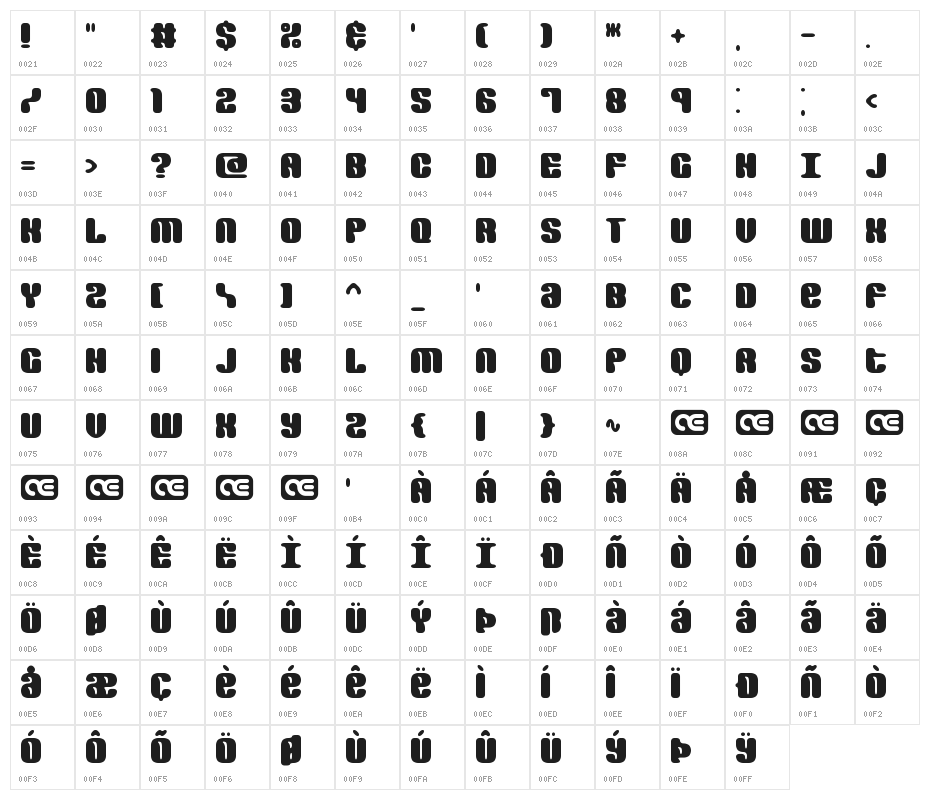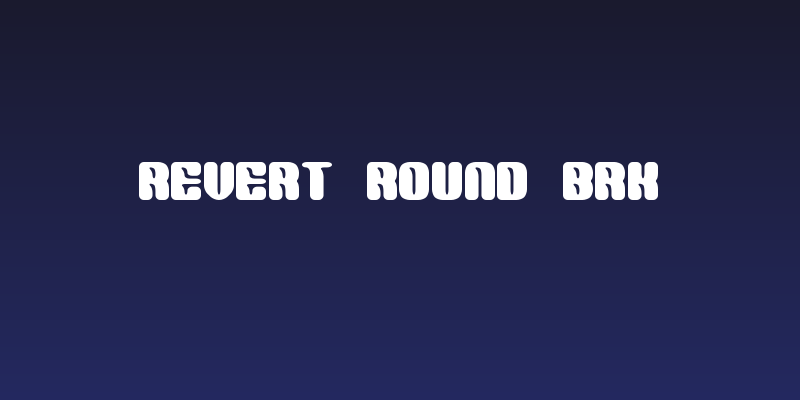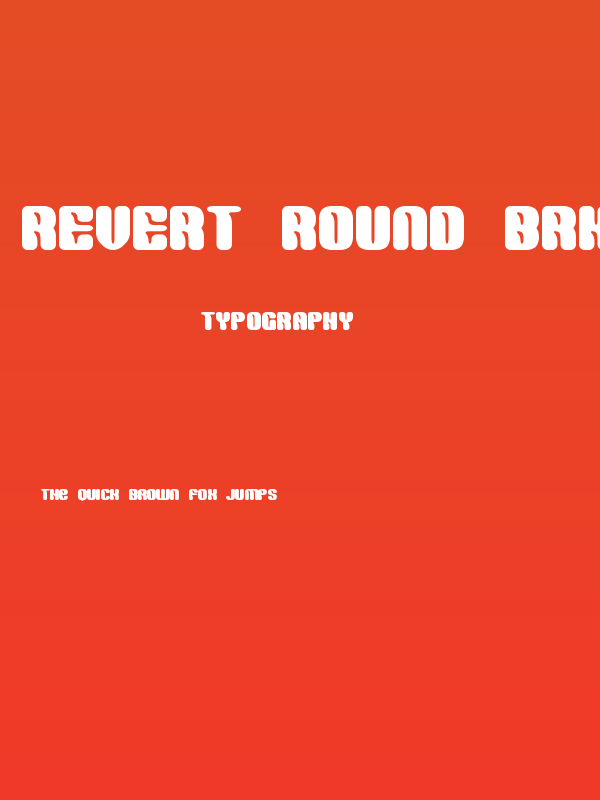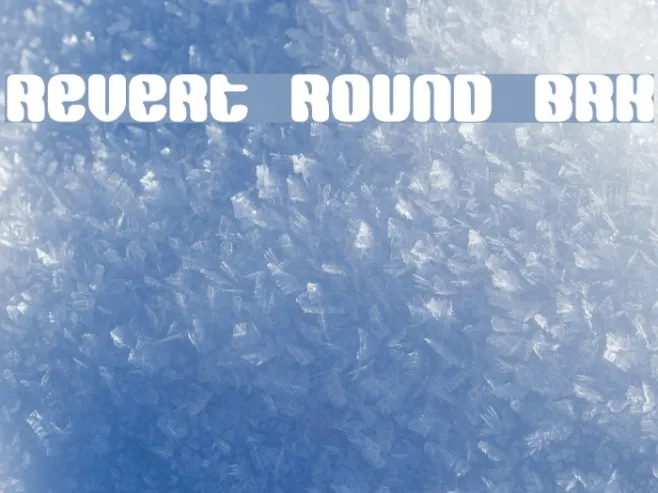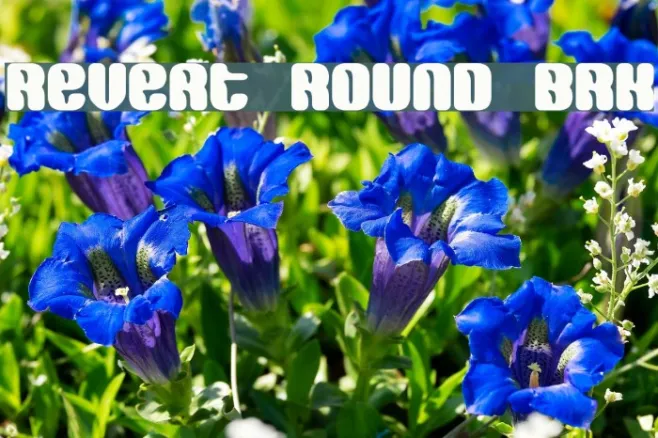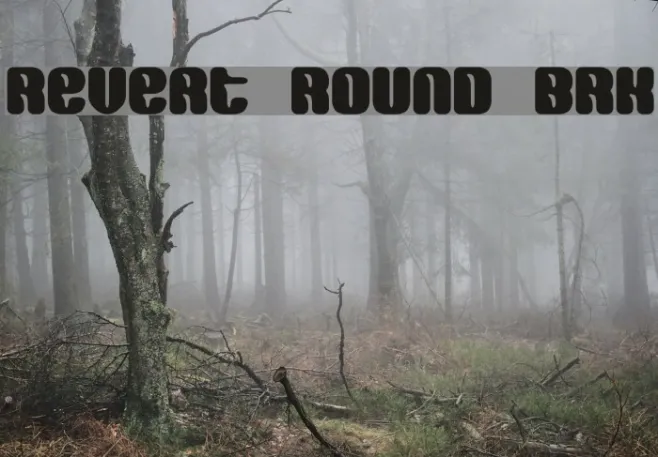
Revert Round BRK Font
Revert Round BRK Description
This font features a bold and rounded style with a playful and retro aesthetic. The characters are thick and uniform, with a consistent stroke width that gives them a strong presence. The rounded edges and smooth curves create a friendly and approachable look, making it ideal for designs that aim to convey warmth and nostalgia. The font includes both uppercase and lowercase letters, numerals, and a variety of special characters, all maintaining the same bold and rounded characteristics. Its distinct style makes it stand out, perfect for eye-catching headlines or creative projects.
| Overall Style | Retro, Playful |
| Proposed Projects | Ideal for retro-themed posters, playful branding, children's books, and eye-catching headlines. |